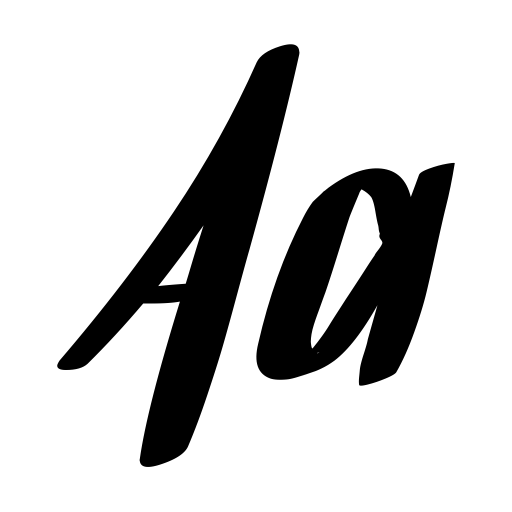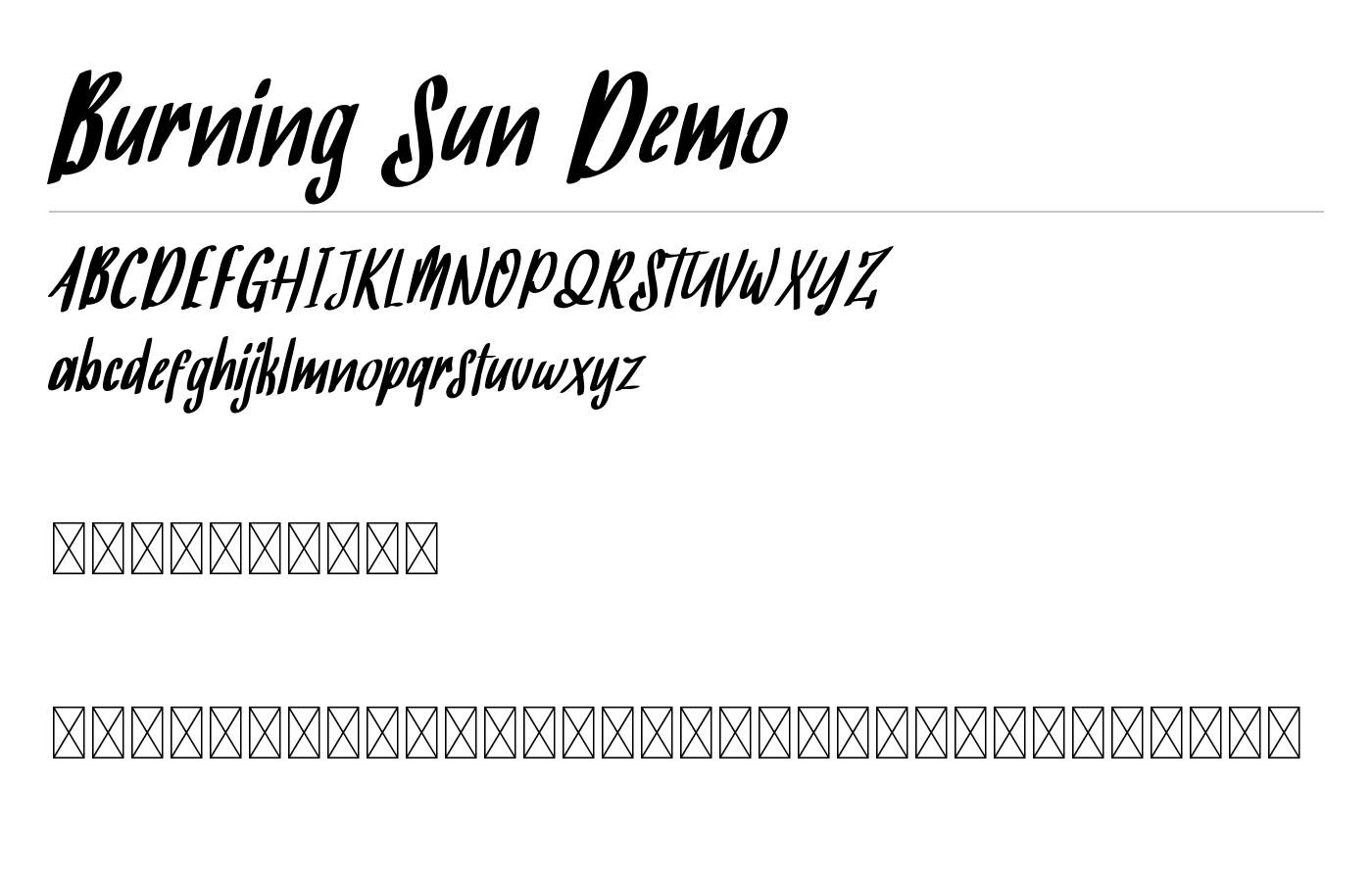
Burning Sun Demo is an energetic script font with a bold, brushstroke style that conveys a dynamic and expressive personality. Its tall, slightly condensed letterforms and contrasting thick and thin strokes create a sense of movement and flair, making it ideal for eye-catching headlines, logos, and branding projects that seek a modern yet artistic vibe. This font works especially well for designs that want to evoke creativity, warmth, and a handcrafted touch.
Burning Sun Demo Font
About Burning Sun Demo Font
| Font family | Burning Sun Demo Font |
| Designer | Fajar Saepul Rohman |